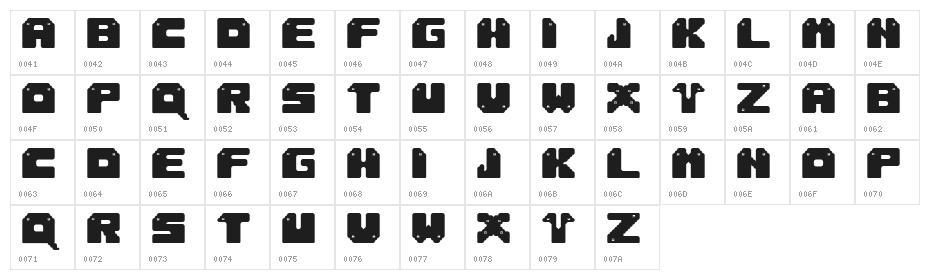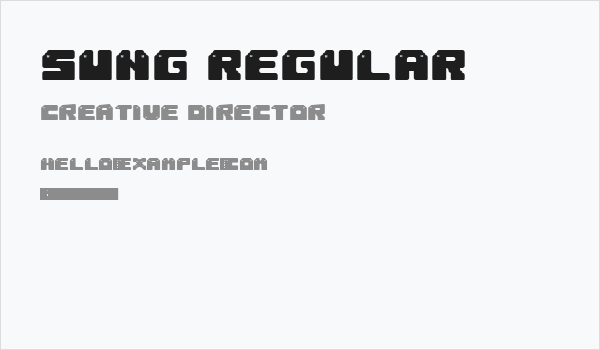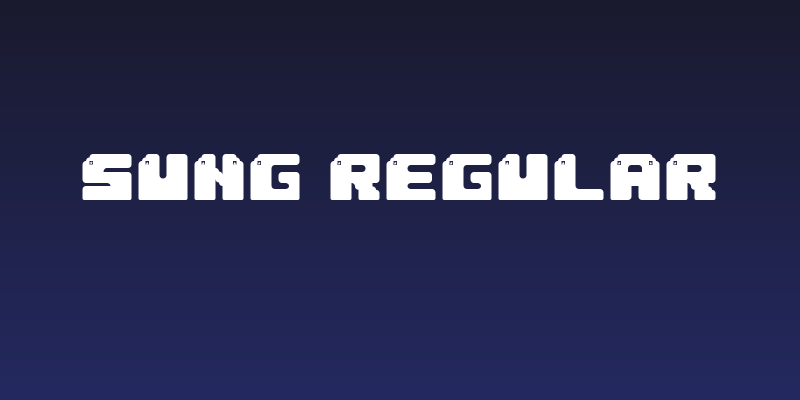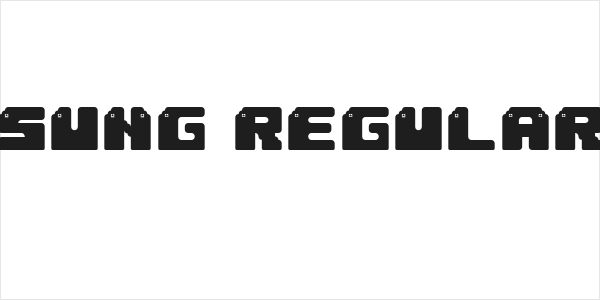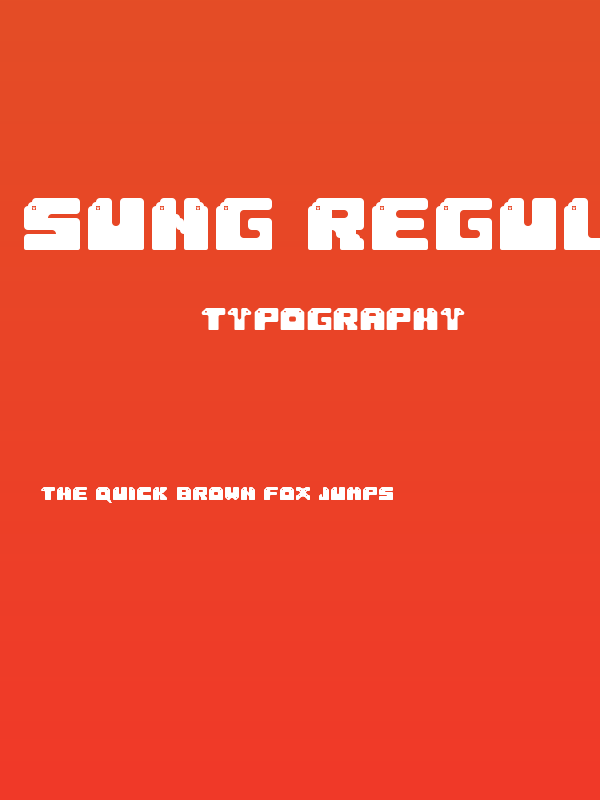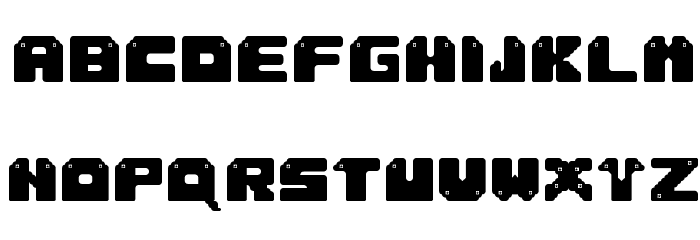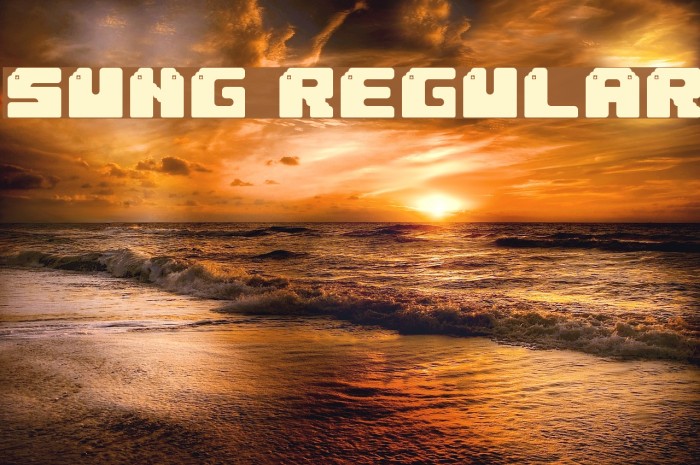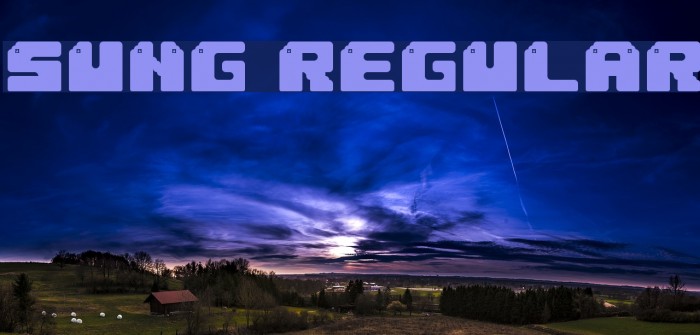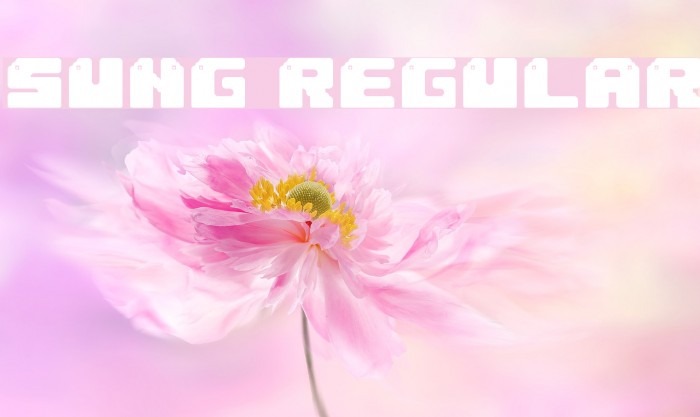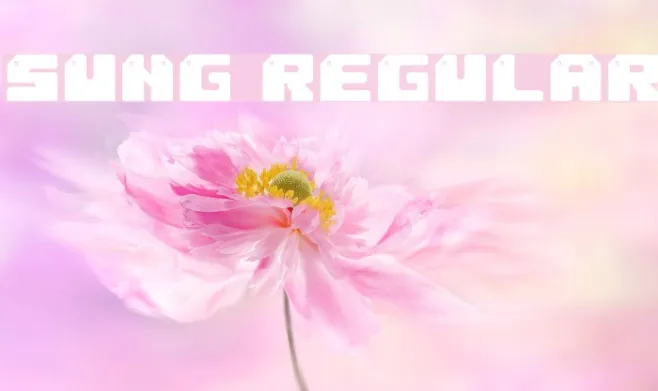
Sung Regular Font
Sung Regular Description
This font features a bold, geometric style with a distinct block-like appearance. Each character is crafted with uniform thickness, creating a strong and impactful presence. The edges are slightly rounded, adding a touch of softness to the otherwise robust design. The font maintains a consistent height across all characters, ensuring a harmonious and balanced look. Its modern and industrial aesthetic makes it suitable for projects that require a bold statement. The spacing between characters is tight, contributing to its compact and cohesive appearance.
| Proposed Projects | Ideal for headlines, posters, branding, and any design that requires a strong visual impact. |